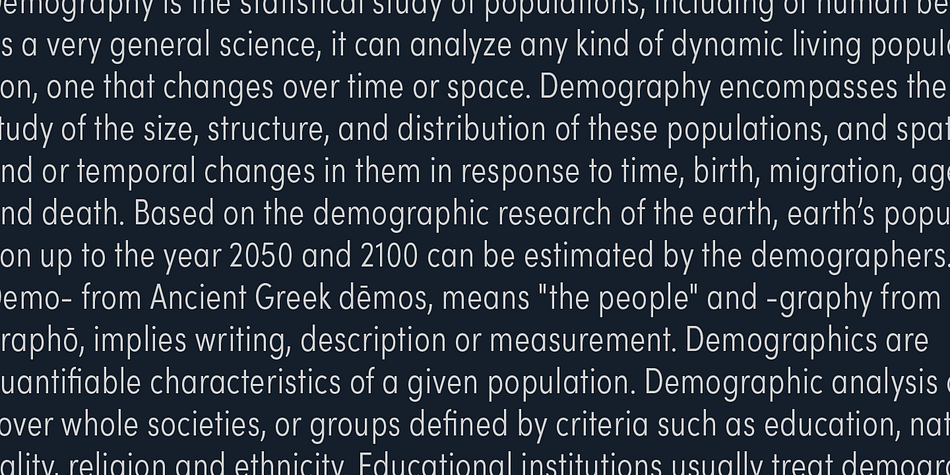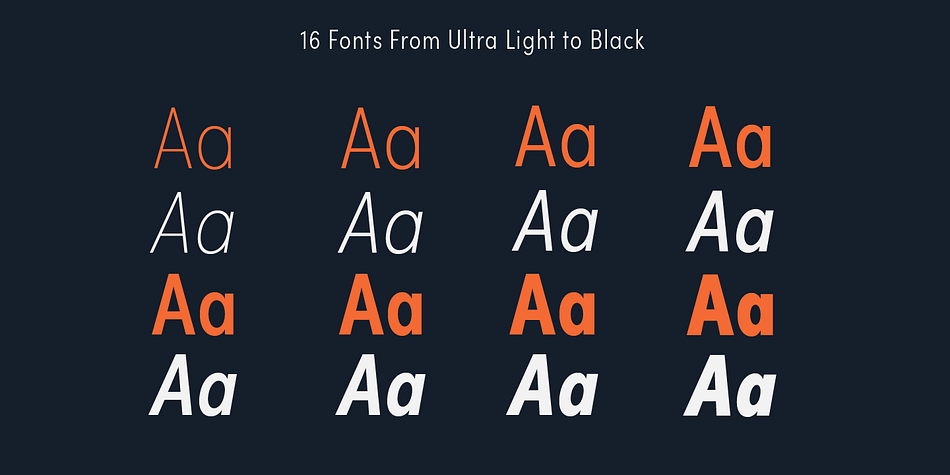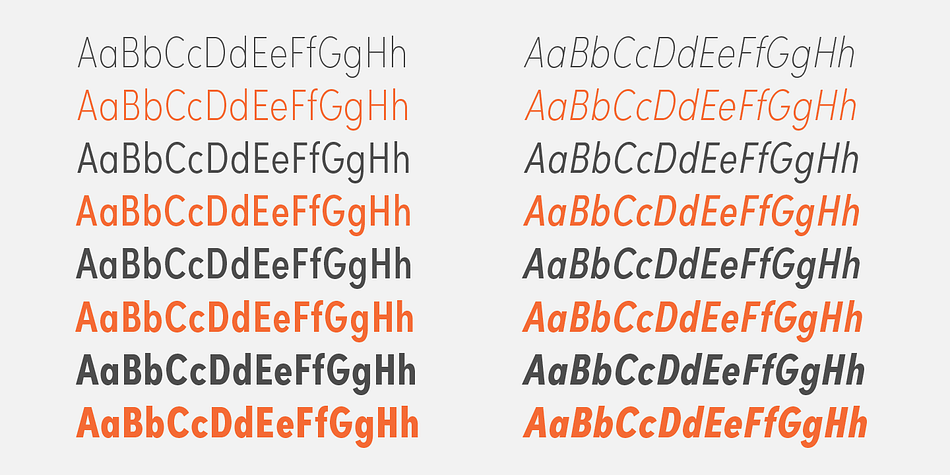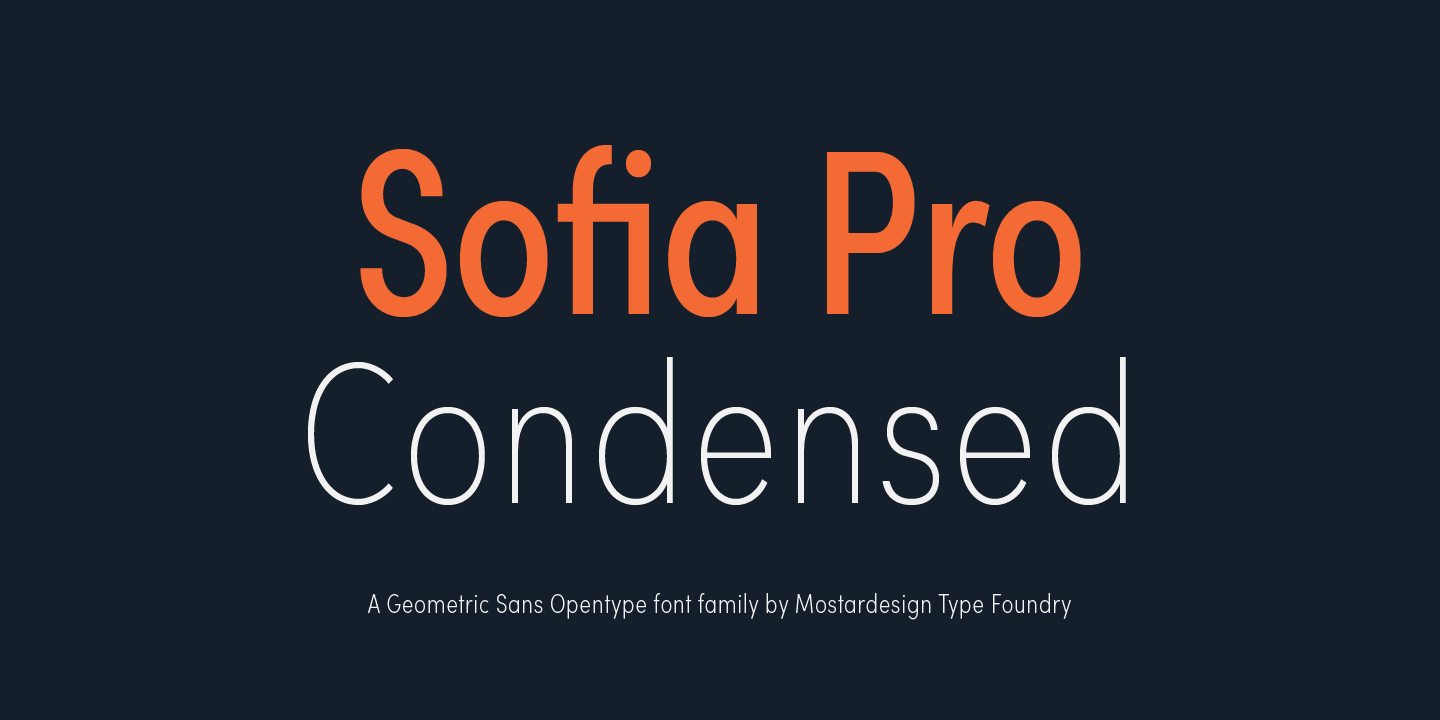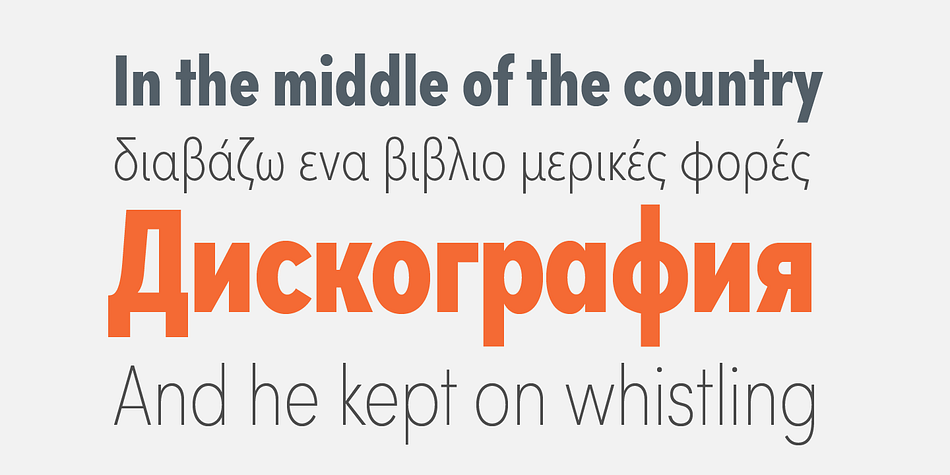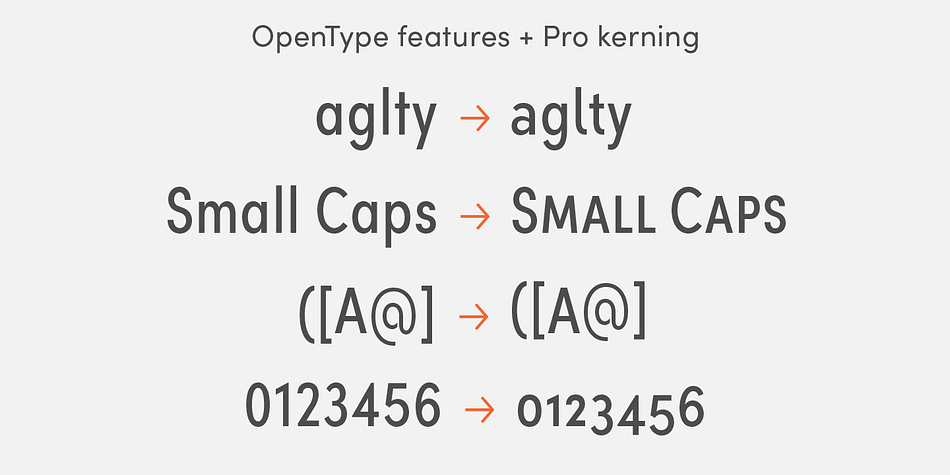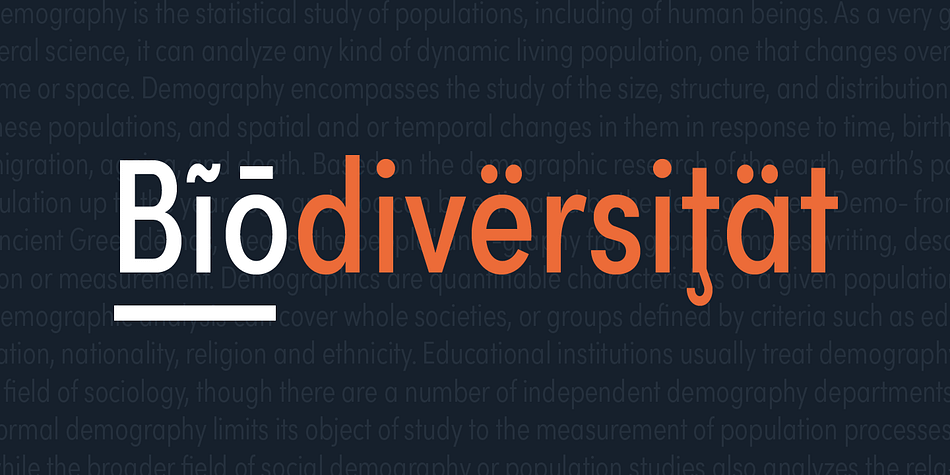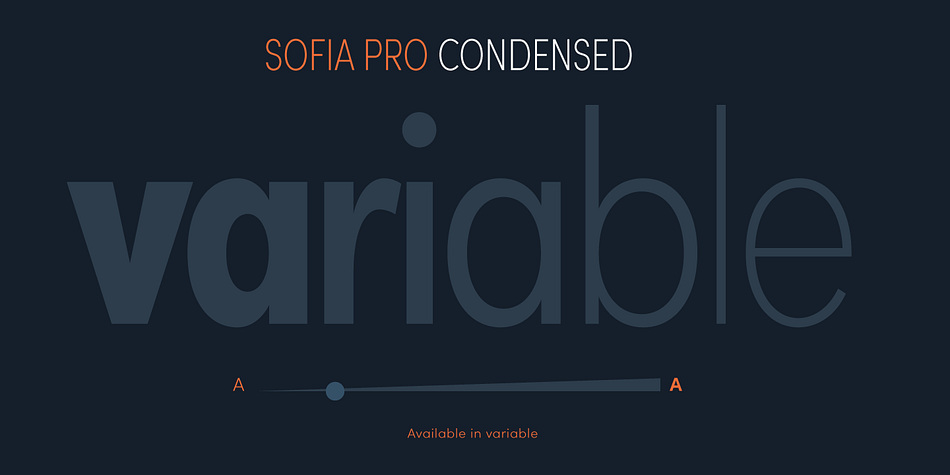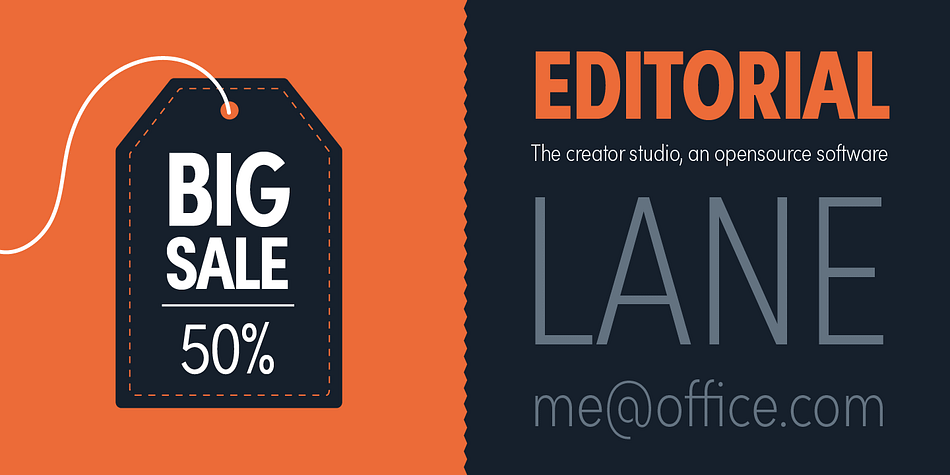
Sofia Pro Condensed is a sans serif font family. This typeface has sixteen styles and was published by Mostardesign.
A geometric sans for space saving typography
Sofia Pro Condensed is the condensed version of the popular Sofia Pro font family. This typeface was completely drawn with the look of the original normal-width version. Sofia Pro Condensed contains 16 styles from Ultra Light to Black (Ultra Light, Extra Light, Light, Regular, Medium, Semi Bold, Bold and Black) with an alternative glyph set to improve its use in different graphic contexts.
This typeface will be suitable for many projects such as titles, subtitles, long editorials, brand building, mobile applications, ebooks, websites or company signage. Its contemporary aspect and its condensed style will also be suitable for editorial projects who needs to save space.
Sofia Pro Condensed also has many powerful OpenType features such as case sensitivite forms, old style and tabular figures, ligatures, capital spacing, fractions and alternative characters to give personality to graphic design projects. Designed also for complex editorial content, this typeface has a powerful home kerning system called “Pro Kerning”. With more than 1500 pairs of glyphs in many languages, Pro Kerning optimizes headlines, subtitles, texts as well as long paragraphs in real time.
In addition to all the features of its kind, Sofia Pro Condensed is part of a very complete “type system” with style variants such as the normal-width-version (Sofia Pro), the soft version (Sofia Soft) or the rough version (Sofia Rough). With all these typefaces, you have more than 40 styles to make your own vibrant and professional graphics or web creations while maintaining consistency in your creations.
The OpenType features of Sofia Pro Condensed have an extended character set to support Central and Eastern European as well as Western European languages, Cyrillic and Greek. For more info about the powerful opentype features and the complete character map of Sofia Pro Condensed, download the PDF specimen to get a detailed view of all features.